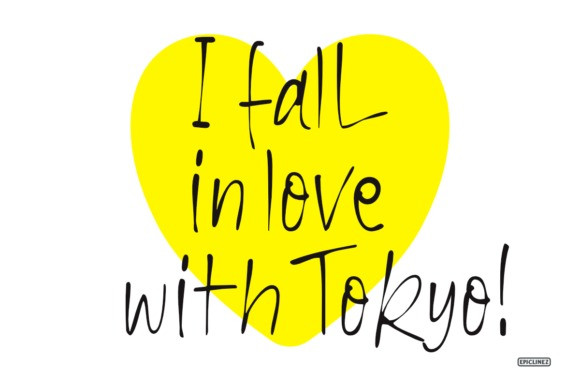
Little Tokyo Script Font
Little Tokyo is a casual, fun handwritten font. Clean and a little bit quirky, this font is the perfect fit for all of your logos, branding, social media, and crafty DIY projects.